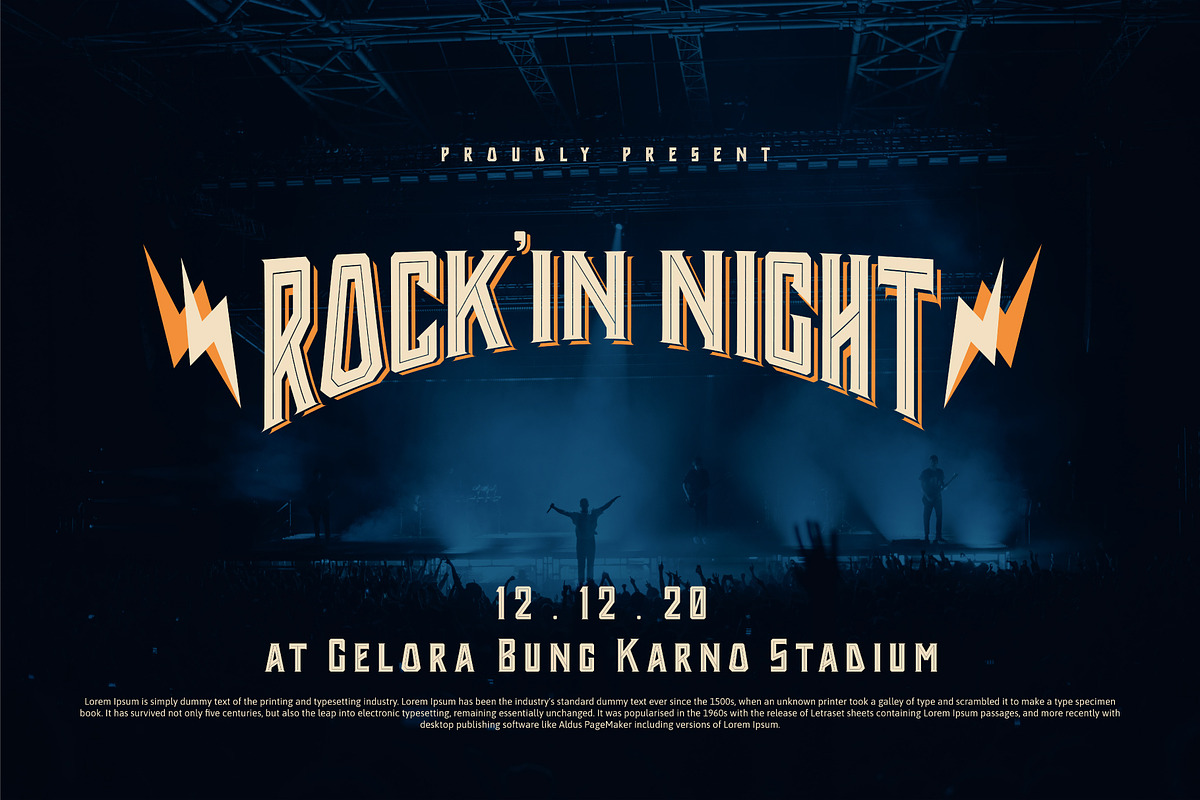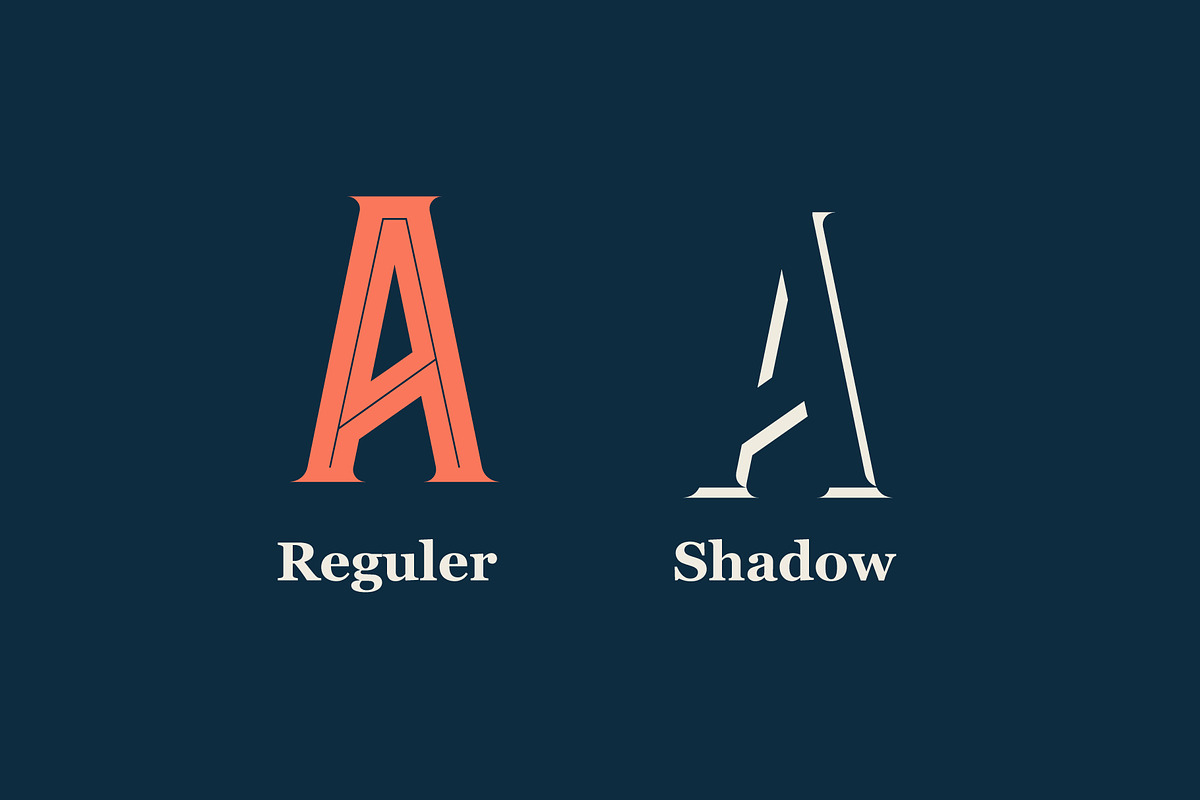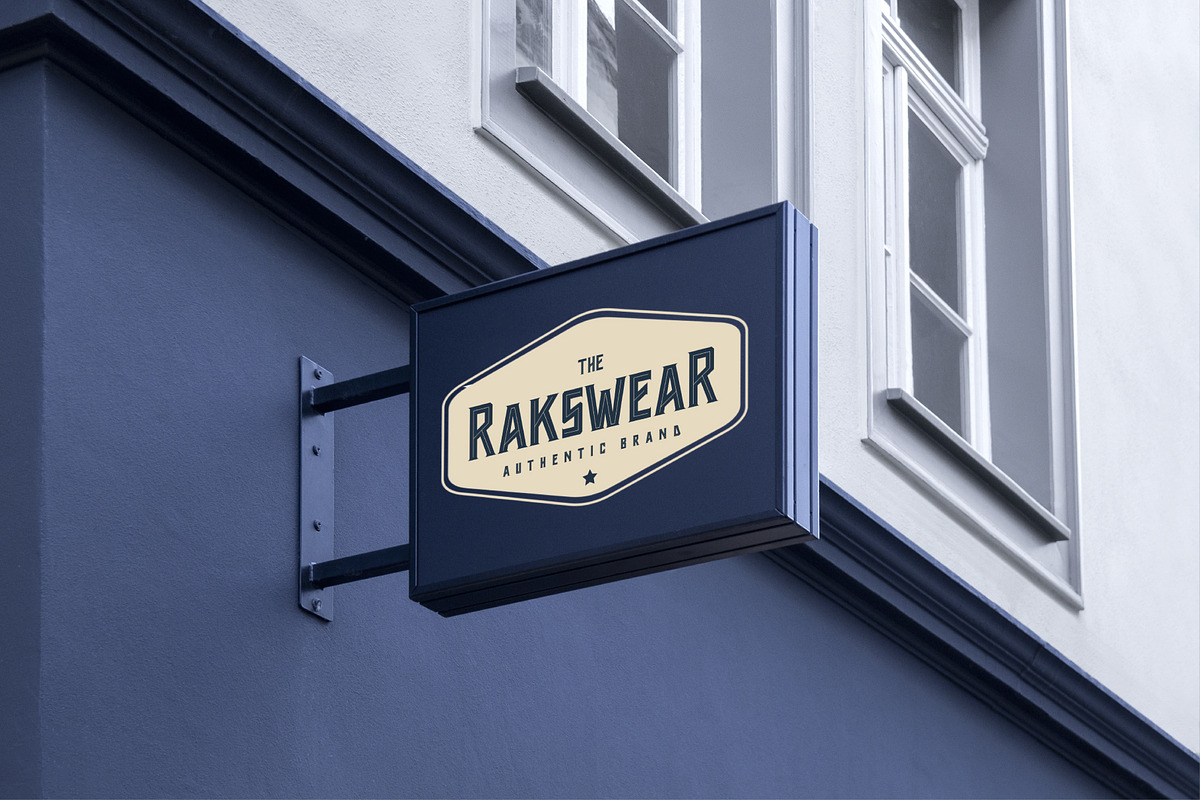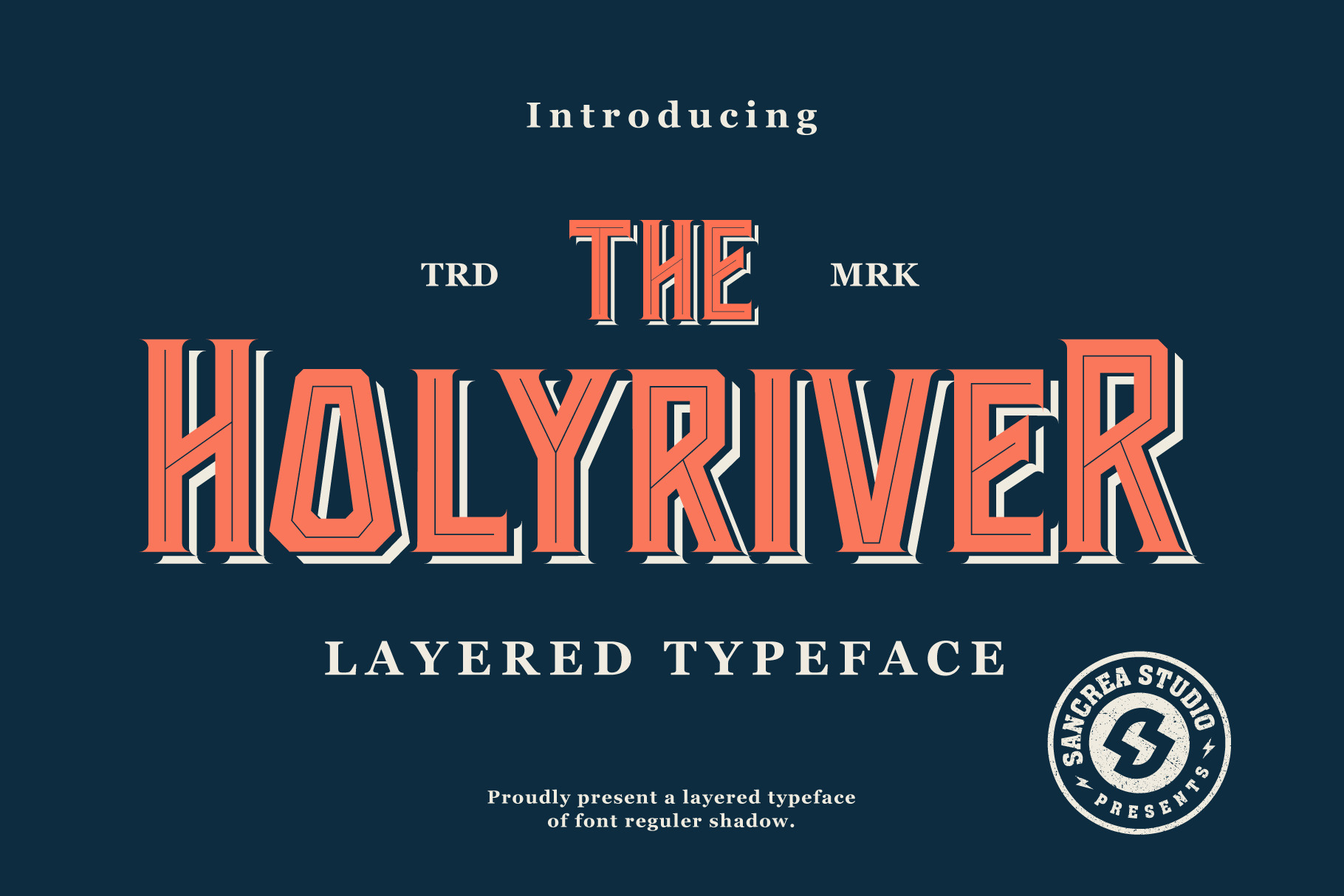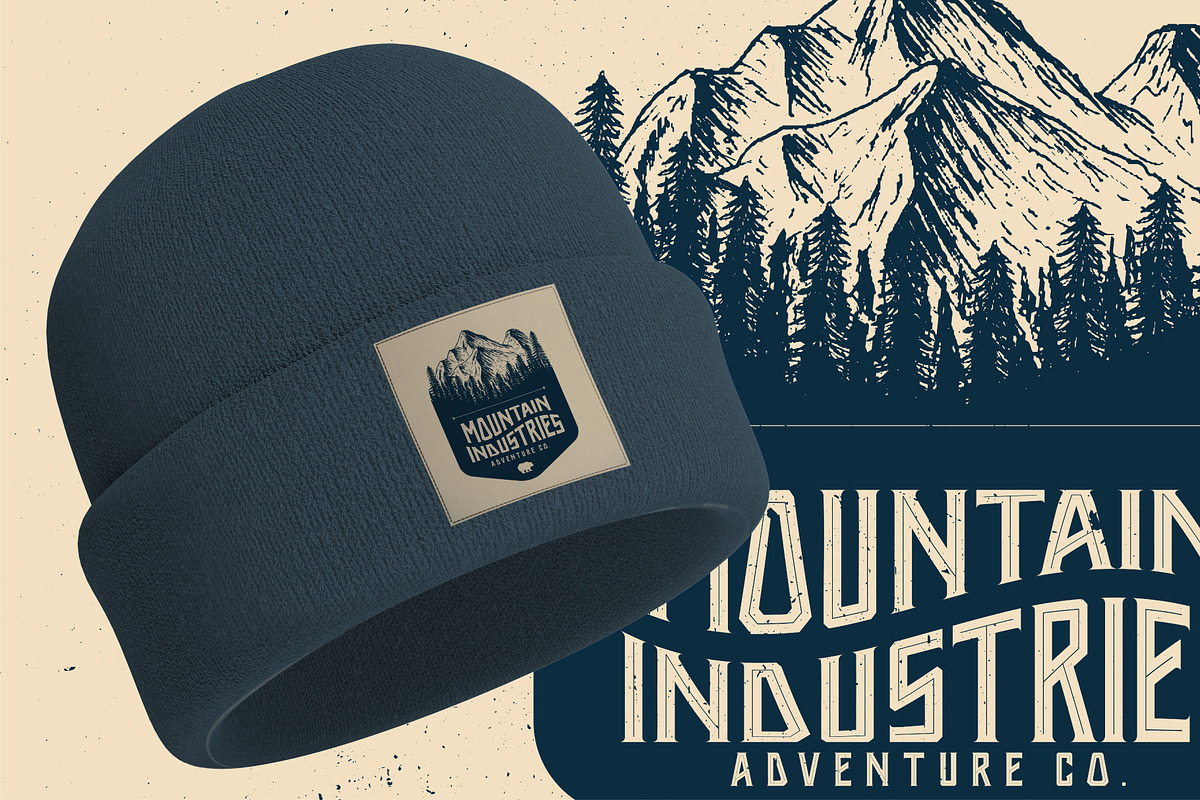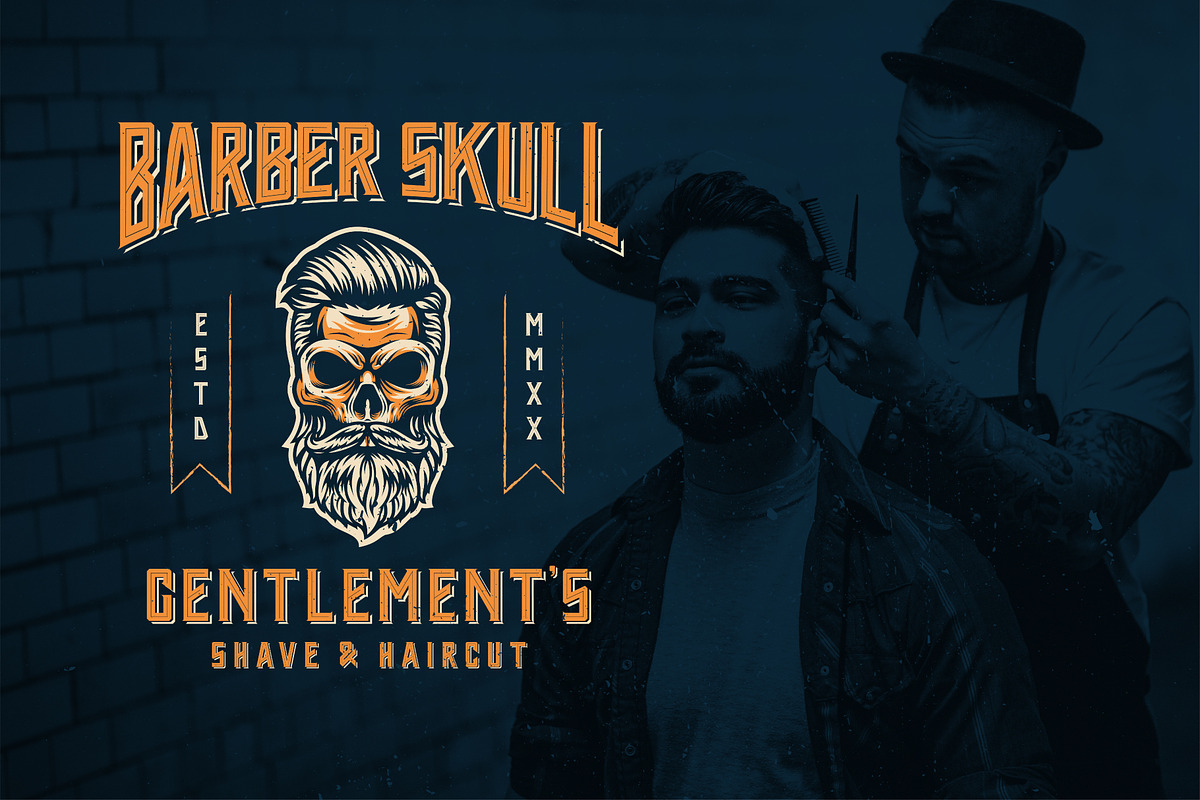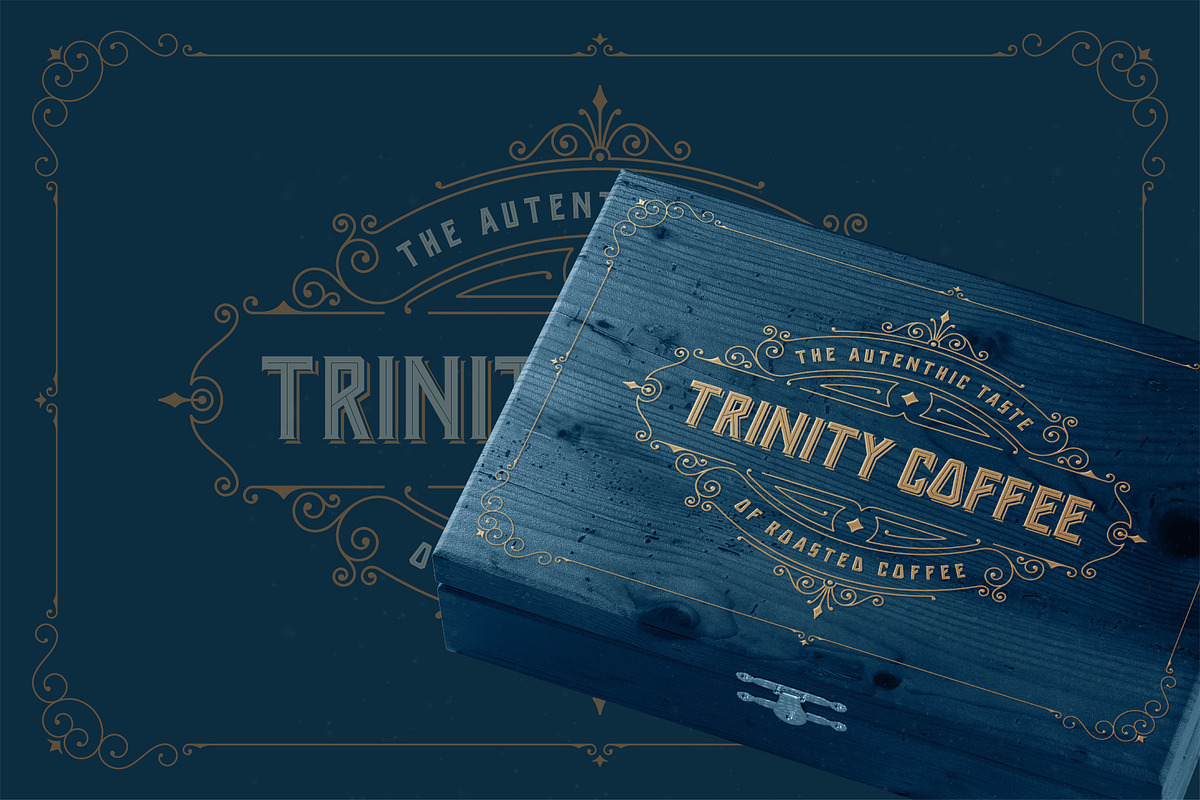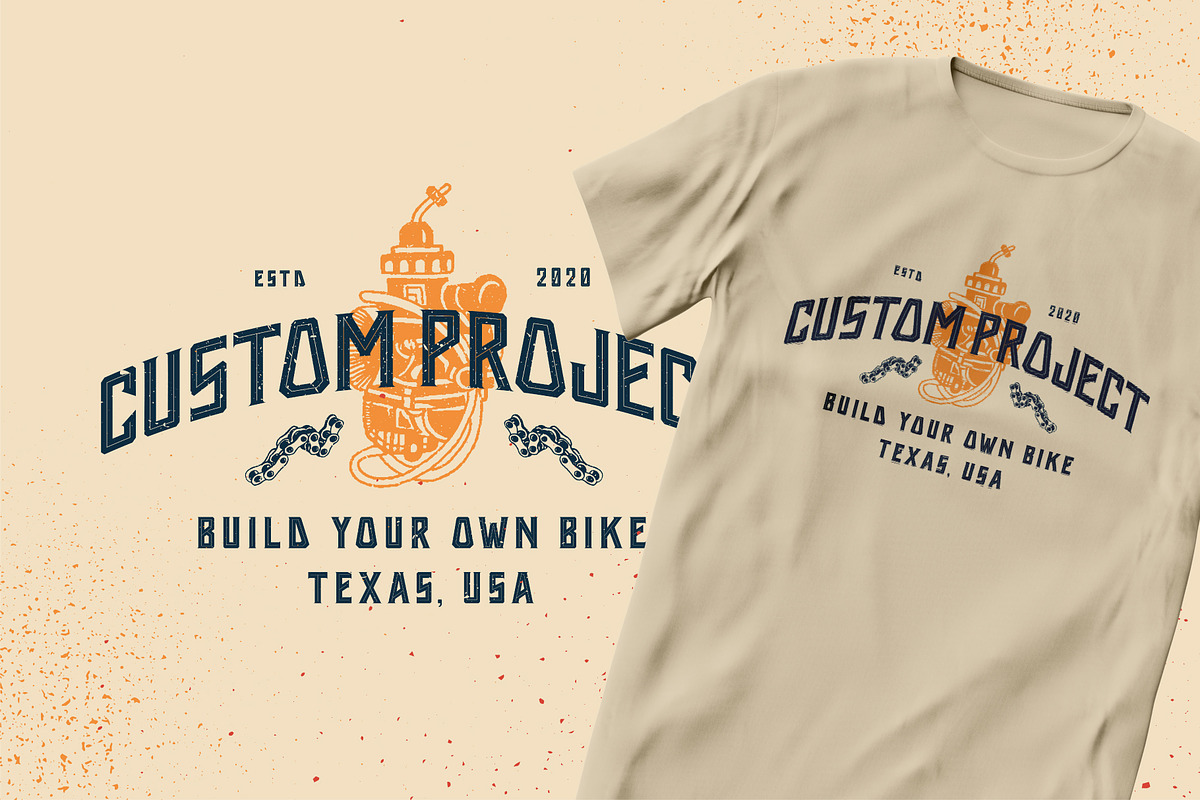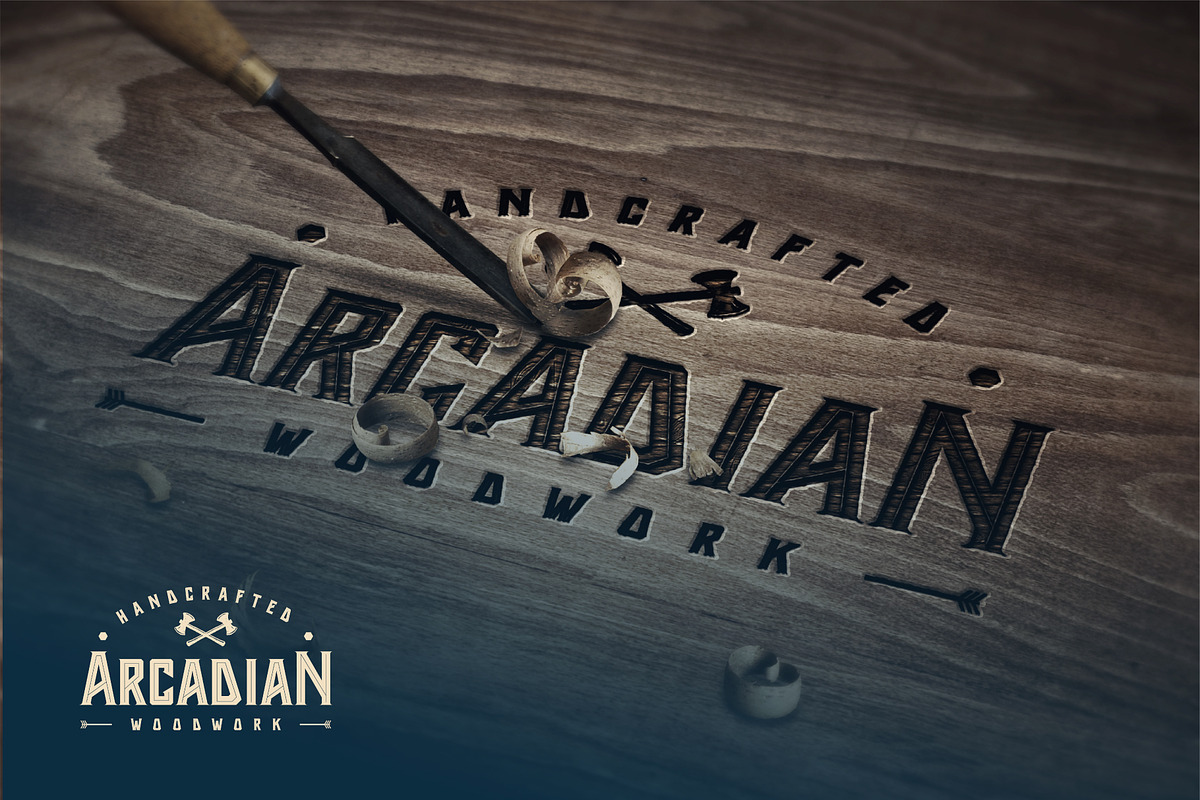
Holyriver Typeface
Holyriver Typeface is a layered typeface, Inspired by vintage american west poster and circus poster that have a strong shapes so it will create more attention for people to look more closely. Comes with 4 font system that can be layered to create different effect shadow.
Holyriver Typeface includes a full set of capital and lowercase letters, as well as multi-lingual support, currency figures, numerals, and punctuation.
- 2 Styles (Solid & Shadow)
- All Caps Characters
- Numerals, Punctuation, and Special Characters